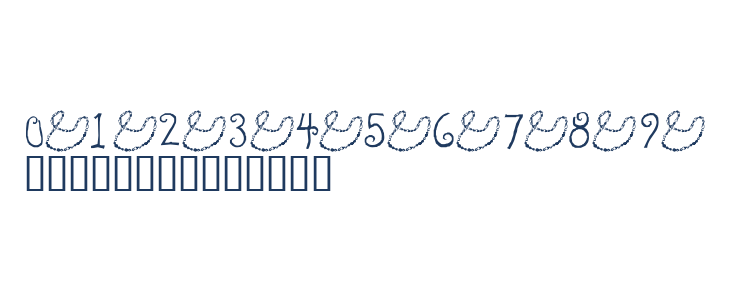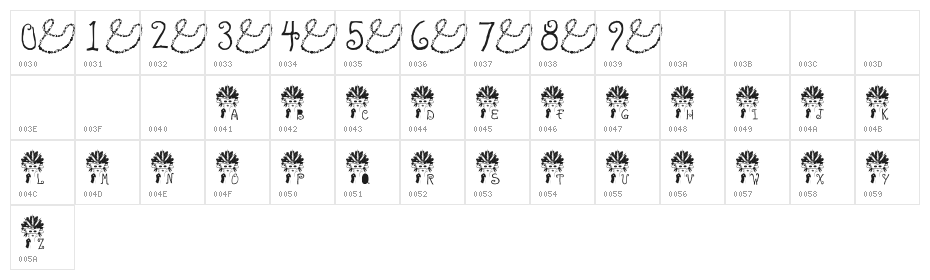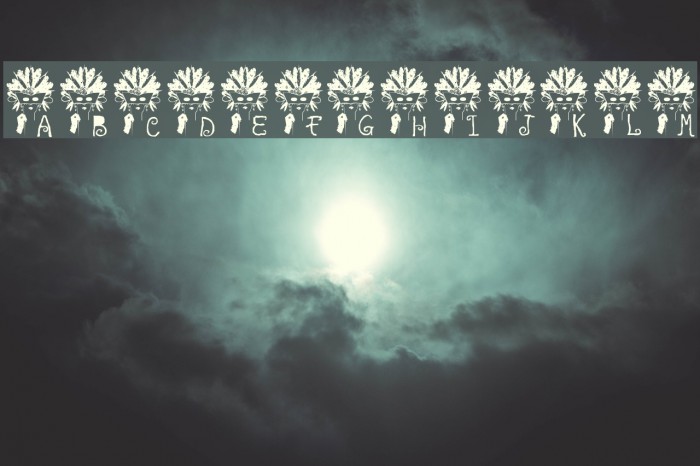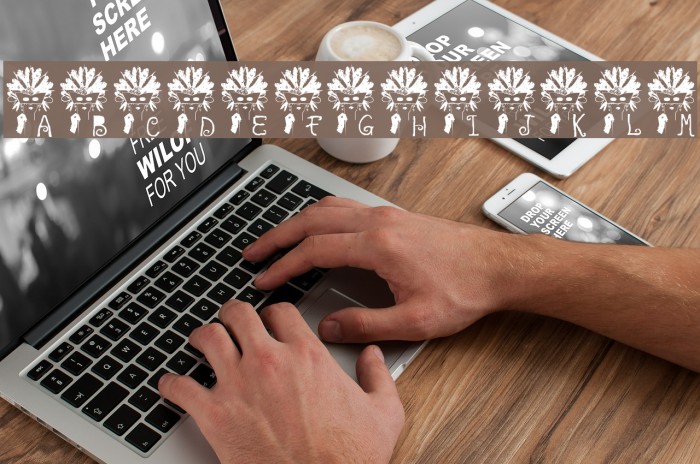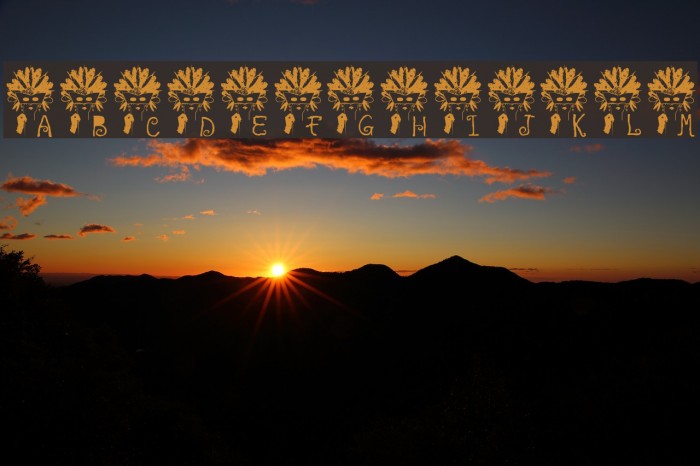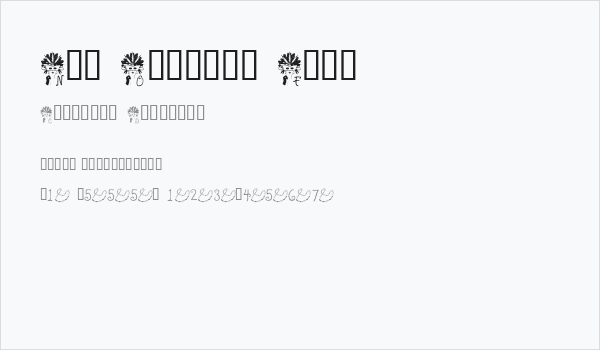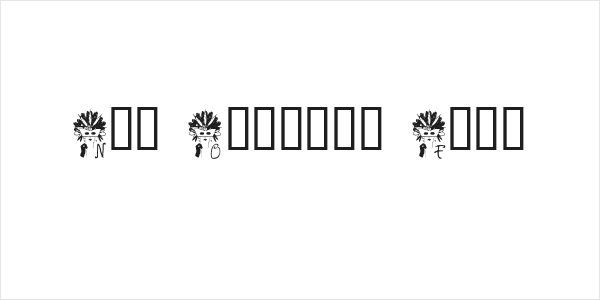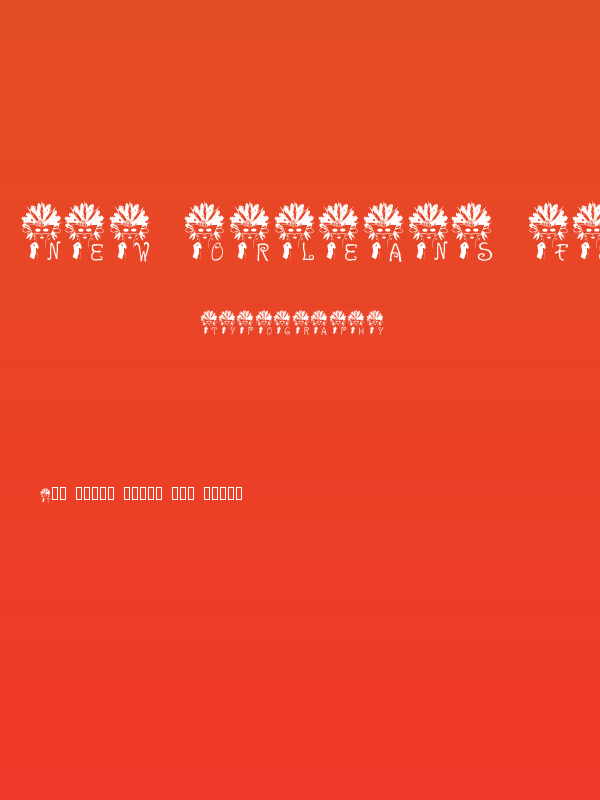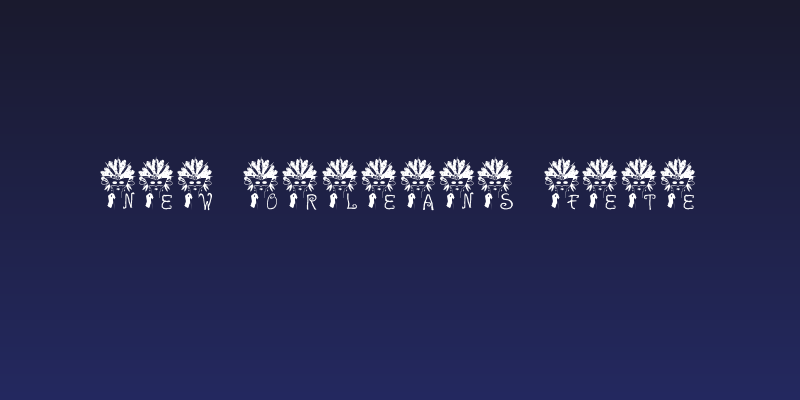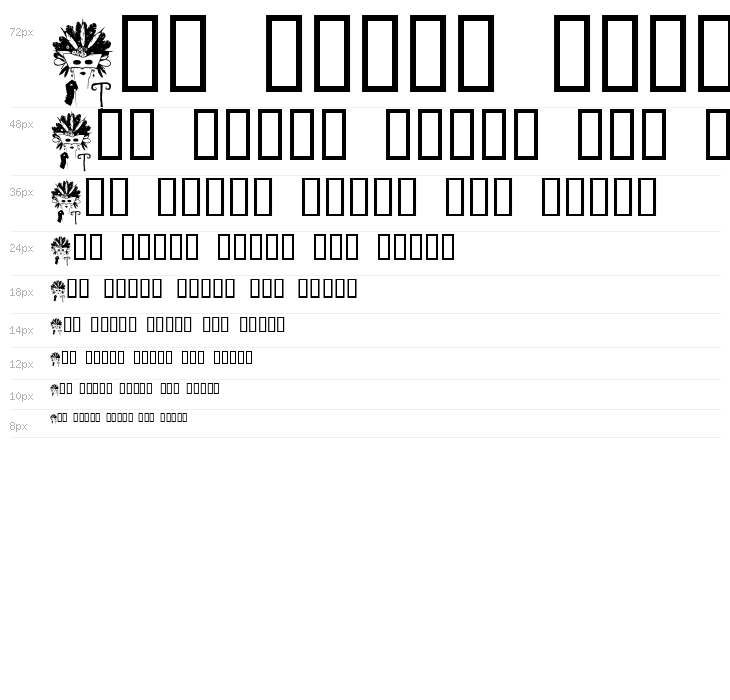
New Orleans Fete Font
New Orleans Fete Description
This decorative font features an elaborate design with each letter adorned with a unique, intricate pattern reminiscent of festive masks or headdresses. The uppercase letters are stylized with bold, artistic embellishments that give a sense of celebration and cultural richness. The numbers are similarly adorned, maintaining the festive theme. The font's overall appearance is playful and ornate, making it suitable for projects that require a touch of whimsy and cultural flair. The absence of lowercase letters and special characters suggests a focus on decorative use rather than practical text applications.
| Proposed Projects | Ideal for event invitations, festival posters, themed party decorations, and cultural celebration materials. |